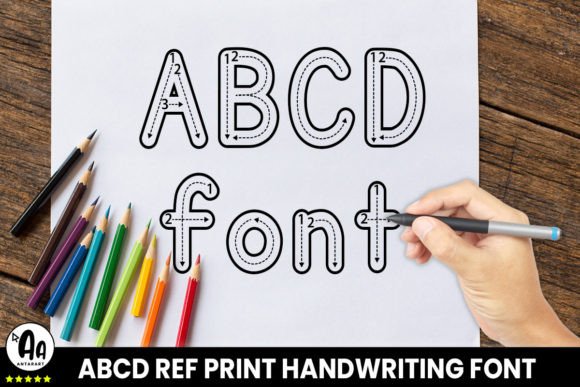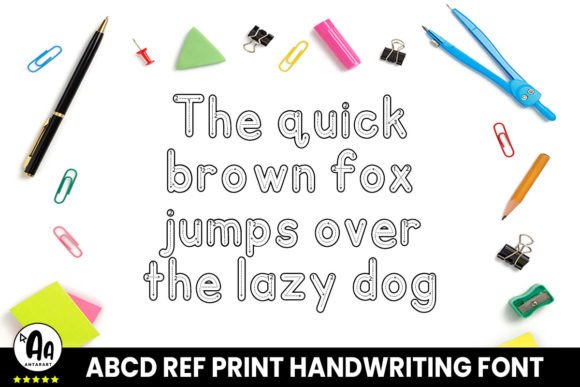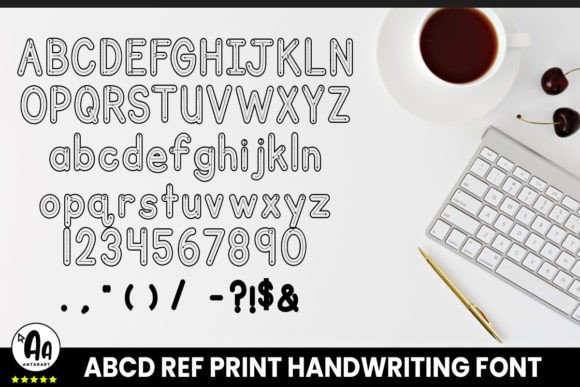
Unlock Creative Learning with ABCD Ref Outlined Arrows2 Font
Are you a designer, educator, or parent looking for an engaging and interactive way to teach the print alphabet? Look no further than the ABCD Ref Outlined Arrows2 font, part of the ABCD Ref font family. This innovative outline display font is based on the D’Nealian Method used in US schools, making it an excellent resource for creating thousands of worksheets that make learning fun.
What is ABCD Ref Outlined Arrows2 Font?
The ABCD Ref Outlined Arrows2 font is a unique and versatile font designed specifically for educational purposes. Its outline style and arrows provide a visually appealing way to present the alphabet, making it perfect for worksheets, posters, and other learning materials. This font is based on the D’Nealian Method, a widely used approach to teaching handwriting in US schools.
Key Features of ABCD Ref Outlined Arrows2 Font
• Outline Display Font: The font’s outline style makes it easy to read and understand, while also providing a clean and visually appealing design.
• D’Nealian Method: Based on a widely used teaching method, this font ensures that learners are presented with a consistent and familiar alphabet style.
• Interactive Learning: The font’s design encourages interactive learning, making it perfect for creating engaging worksheets and educational materials.
• Thousands of Worksheets: With this font, you can create a vast array of worksheets, from simple alphabet charts to complex educational resources.
The ABCD Ref Outlined Arrows2 font offers numerous benefits for designers and crafters looking to create educational resources:
• Customization: With the font’s outline style and arrows, you can customize your educational resources to suit your specific needs.
• Consistency: The font’s D’Nealian Method base ensures consistency in your educational resources, making it easier for learners to understand and engage with the material.
Tips for Using ABCD Ref Outlined Arrows2 Font
• Experiment with Different Sizes: The font’s outline style makes it versatile and suitable for use in various sizes, from large posters to small worksheets.
• Combine with Other Fonts: Pair the ABCD Ref Outlined Arrows2 font with other fonts to create visually appealing and engaging educational resources.
• Make it Interactive: Use the font’s arrows and outline style to create interactive elements, such as alphabet charts or games.
The ABCD Ref Outlined Arrows2 font is an excellent resource for designers, educators, and parents looking to create engaging and interactive educational materials. With its outline display style, D’Nealian Method base, and versatility, this font is perfect for teaching the print alphabet in a fun and interactive way. While it may not be compatible with Canva, its usability in other design software makes it a valuable addition to any design toolkit.